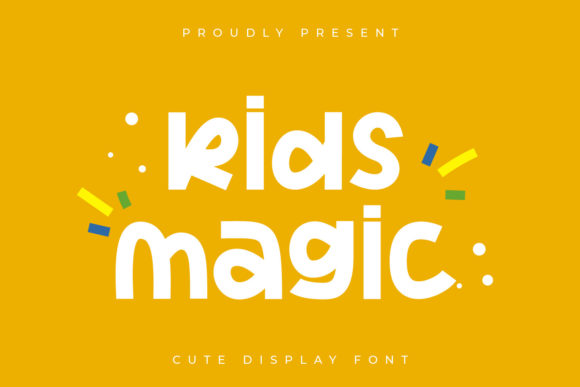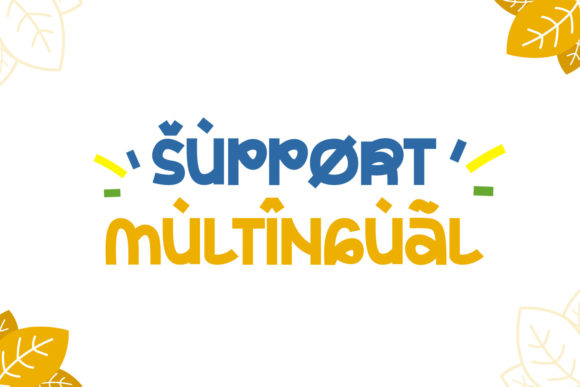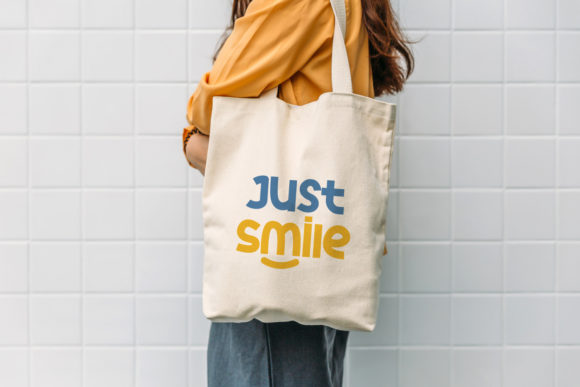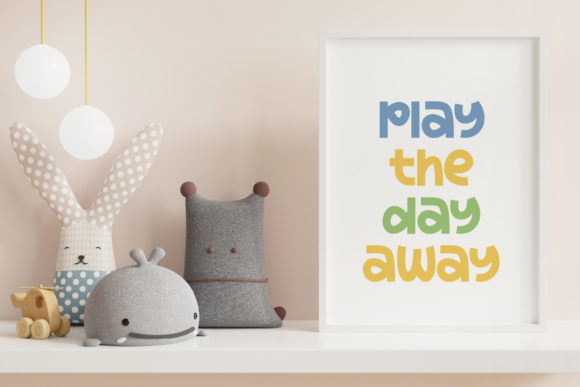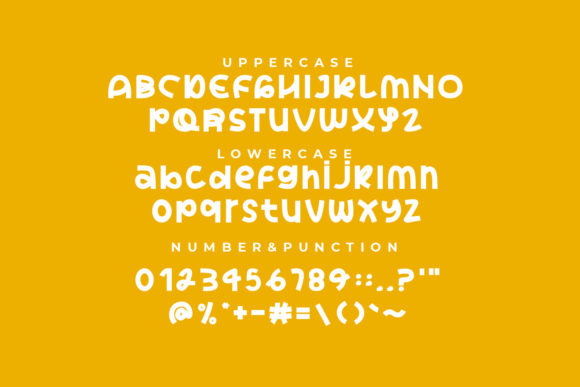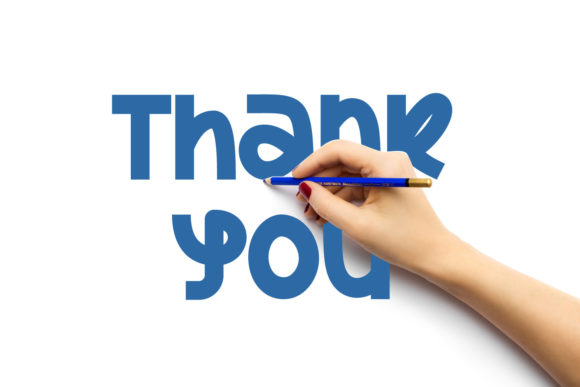
Kids Magic Font
Kids Magic is a cute and colorful display font. It embodies playfulness and authenticity and is the perfect choice for any children activity or school project. Add this chunky lettered font to your designs and notice how it makes them come alive!